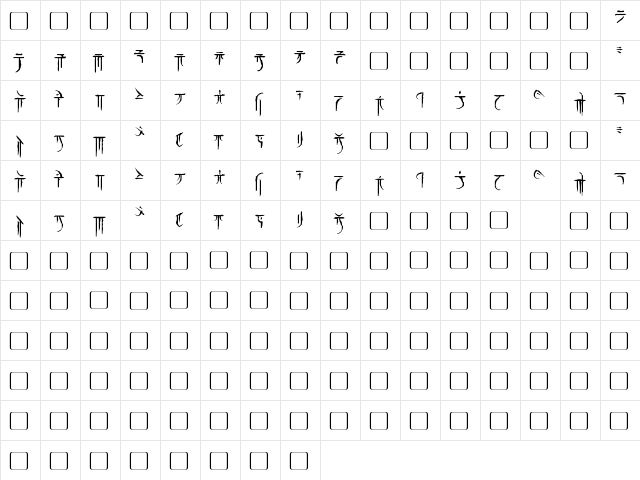
Iokharic Regular
| Foundry | Neale Davidson |
| Designer | Neale Davidson |
Design Context for Iokharic Typeface
Iokharic is a composed and adaptable typeface that performs quietly and consistently across a wide range of design contexts.